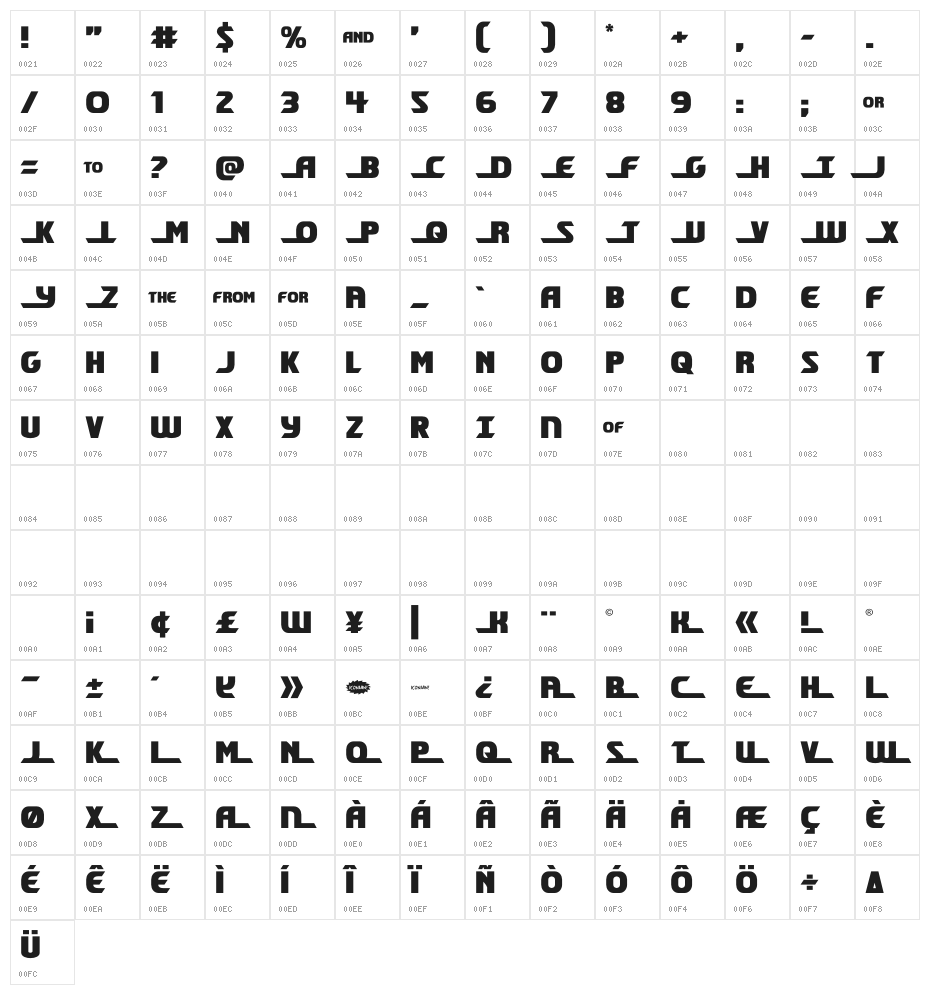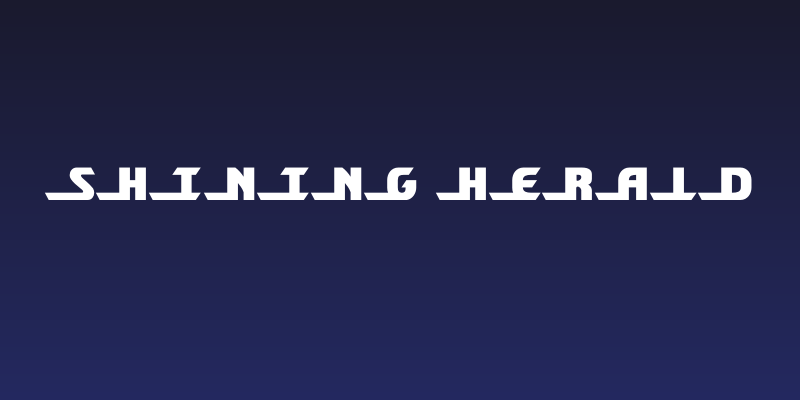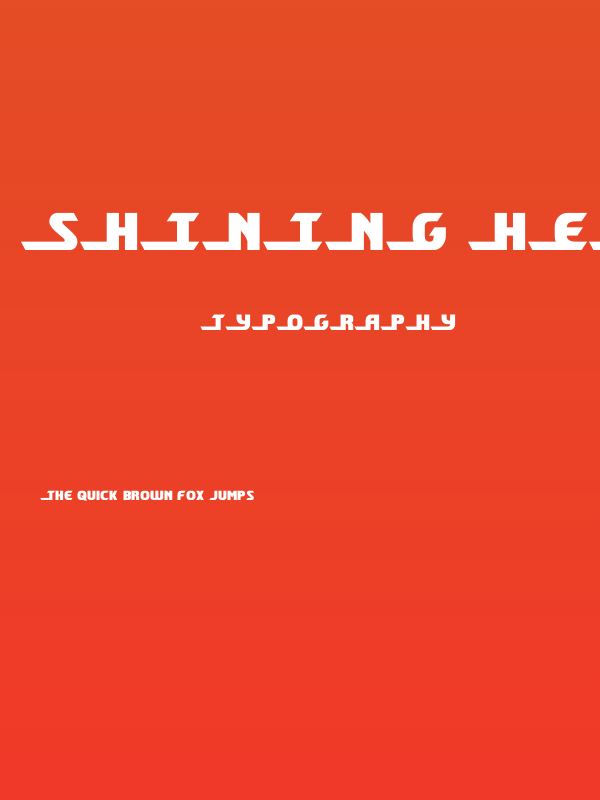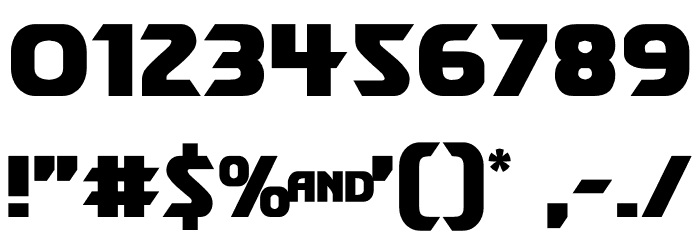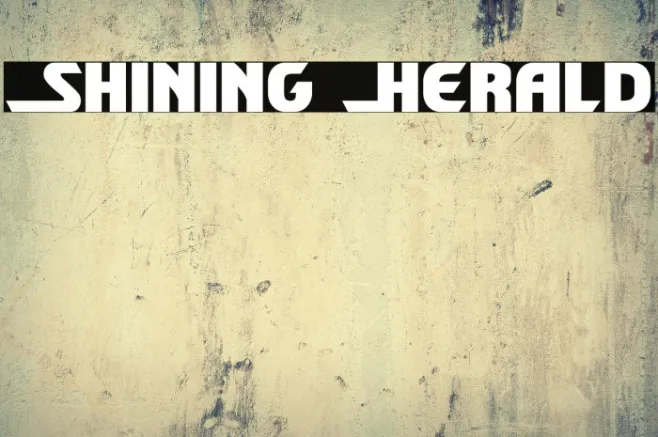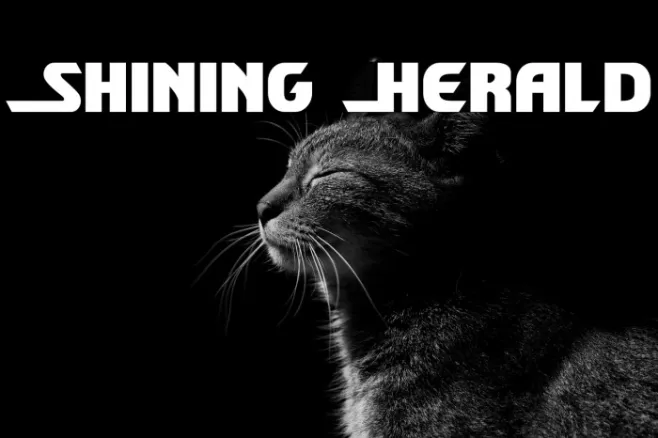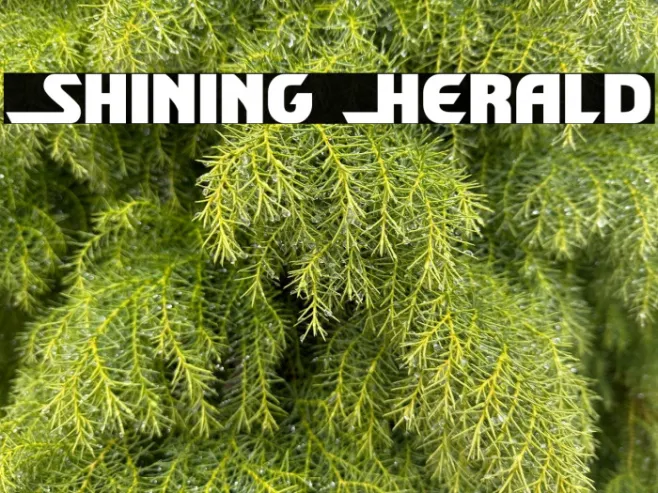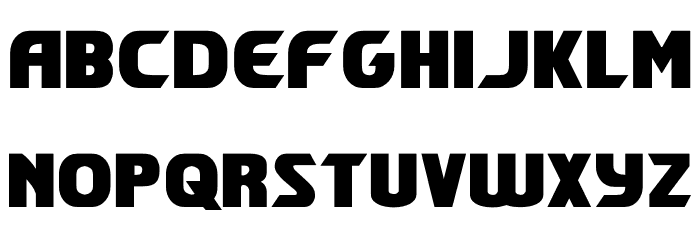
Shining Herald Font
Shining Herald Description
This font features a bold and impactful design with a strong geometric influence. The uppercase letters are characterized by thick, uniform strokes and sharp angles, creating a sense of strength and modernity. The lowercase letters maintain the same boldness, ensuring consistency across the typeface. Numbers and special characters are equally robust, making them stand out with clarity. The overall appearance is clean and assertive, suitable for making a statement. The font's design is versatile, allowing it to be used in various contexts where a strong visual presence is required.
| Proposed Projects | Ideal for branding, headlines, posters, and any project requiring a bold statement. |